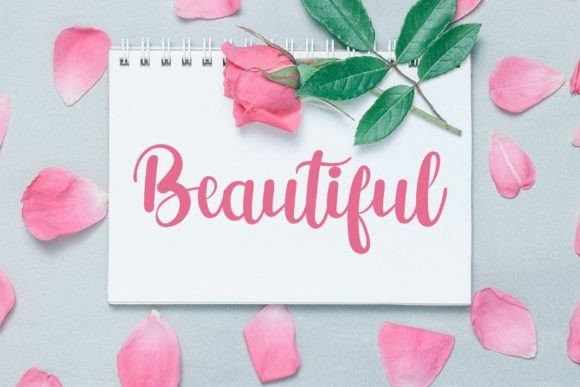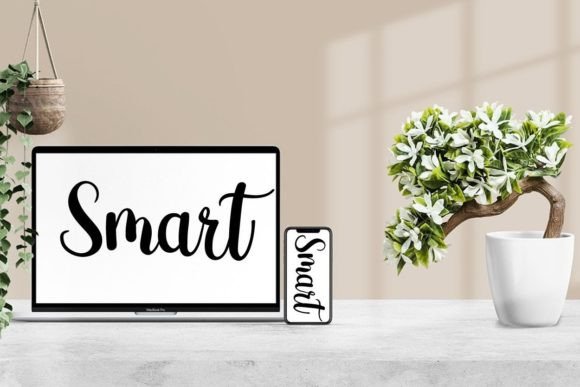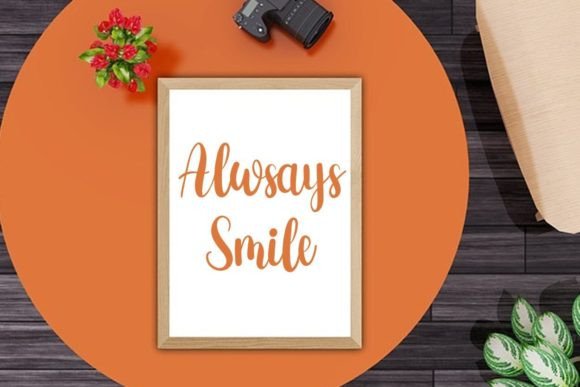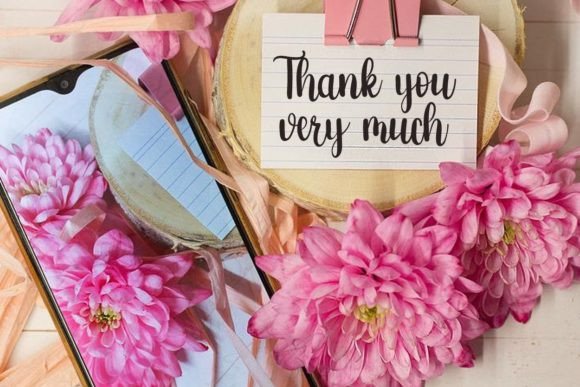
Introducing Billow Font: Elevate Your Designs with a Fresh and Beautiful Handwritten Style
Are you tired of using the same old fonts in your designs? Look no further! Billow Font is here to revolutionize your creative projects with its fresh and beautiful handwritten style. This stunning font is perfect for a wide range of applications, from YouTube banners and covers to logos, mockups, wedding invitations, ID cards, flyers, crafts, and many more.
Billow Font is a versatile and elegant font that can add a touch of sophistication to any design. Its unique and flowing script style makes it perfect for designers and crafters who want to create visually appealing and professional-looking projects. Whether you’re working on a personal project or a client’s design, Billow Font is sure to impress.
What Makes Billow Font Special?
- Fresh and Beautiful Design: Billow Font boasts a modern and stylish design that will make your projects stand out from the crowd.
- Handwritten Style: The font’s handwritten style gives it a personal and unique touch, perfect for creating bespoke designs.
- Highly Versatile: Billow Font can be used for a wide range of applications, from digital designs to print materials.
- Easy to Read: The font’s clear and legible design ensures that your text is easy to read, even at small sizes.
Use Billow Font for Your Next Project
So, what can you create with Billow Font? The possibilities are endless! Here are a few ideas to get you started:
- YouTube Banners and Covers: Create stunning YouTube banners and covers that showcase your brand’s personality.
- Wedding Invitations: Design beautiful and elegant wedding invitations that will impress your guests.
- Logos and Branding: Use Billow Font to create a unique and memorable logo for your business or brand.
- ID Cards and Flyers: Create professional-looking ID cards and flyers that are perfect for businesses, events, or promotions.
- Crafts and DIY Projects: Add a personal touch to your craft and DIY projects with Billow Font.
In conclusion, Billow Font is a fresh and beautiful handwritten font that can elevate your designs and take your business to the next level. Its versatility, elegance, and ease of use make it perfect for designers and crafters who want to create stunning projects. So why wait? Add Billow Font to your designs today and watch your business progress and develop!